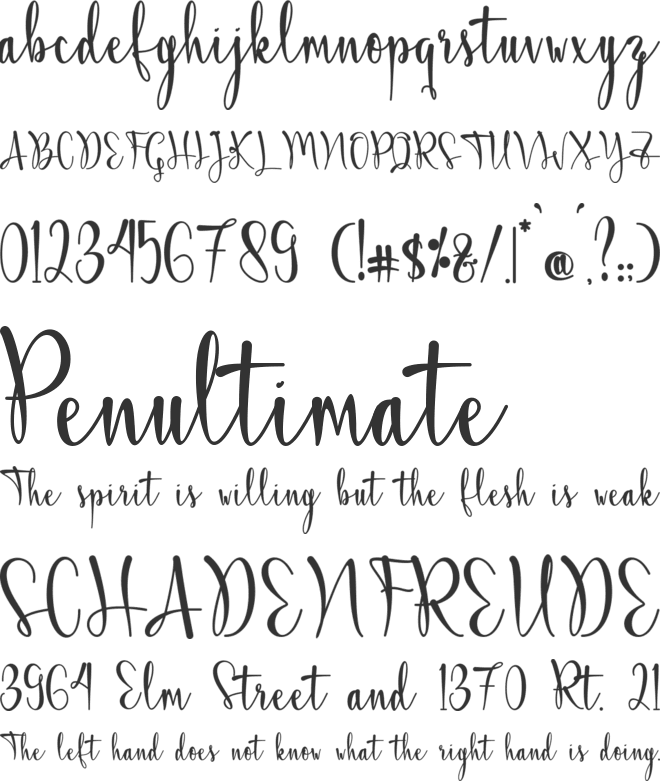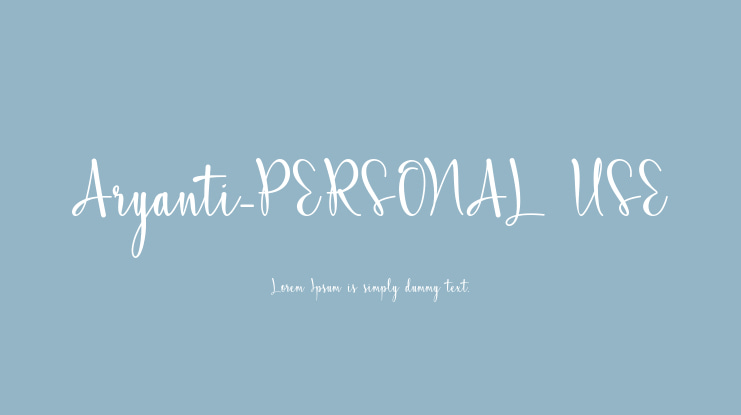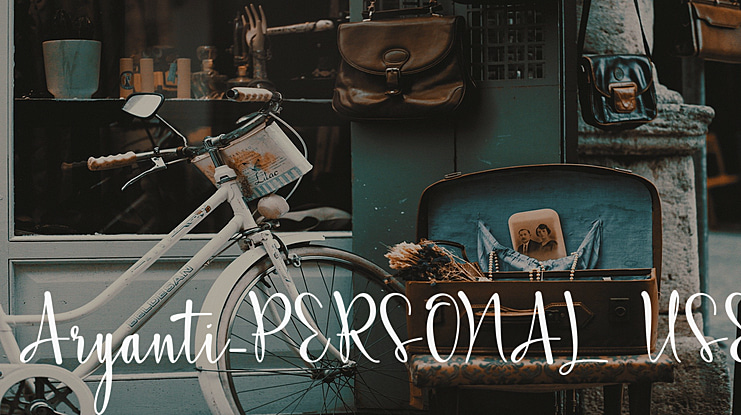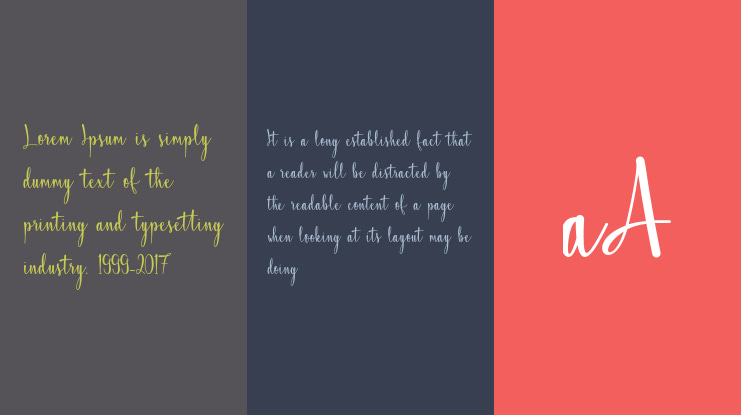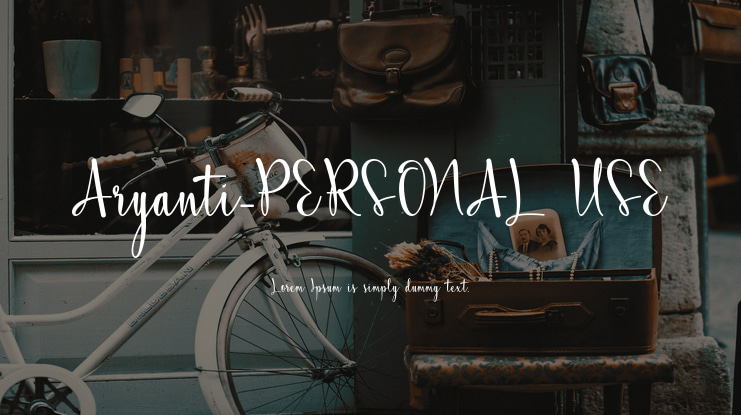
Aryanti-PERSONAL USE Font
Arkrist Letter
Aryanti font is a modern handwritten design that is very elegant, beautiful, and looks classy.
The curves of the lines are designed very carefully so as to create very beautiful and quality strokes.
Aryanti font will create classy beauty in all your works.
Aryanti is very suitable for wedding invitations, congratulations, posters, mockup designs, etc.